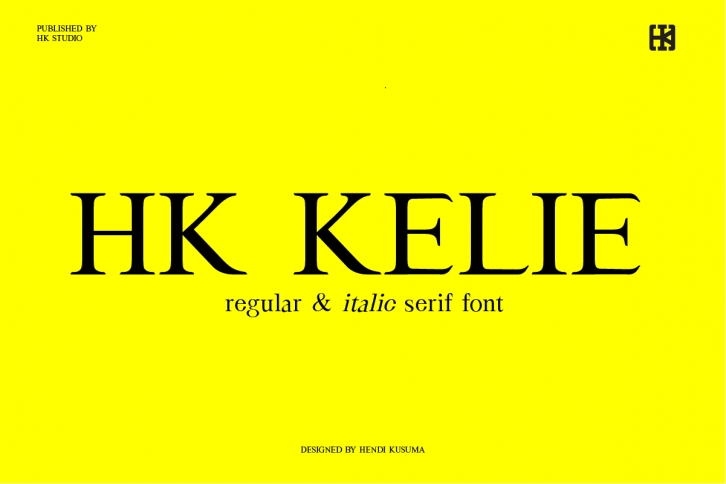
HK Kelie is an authentic and assertive serif font. It can easily be matched to an incredibly large set of projects, so add it to your creative ideas and notice how it makes them stand out!